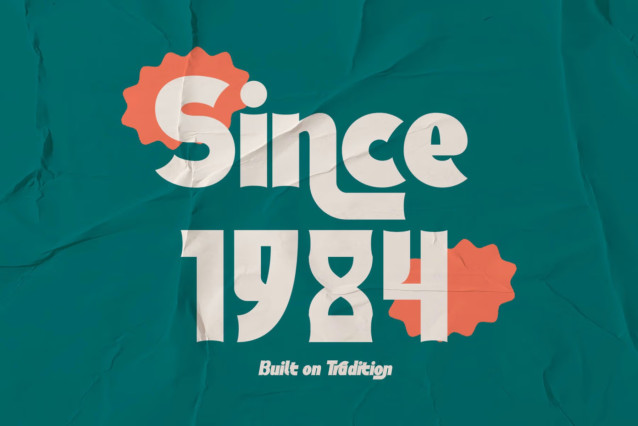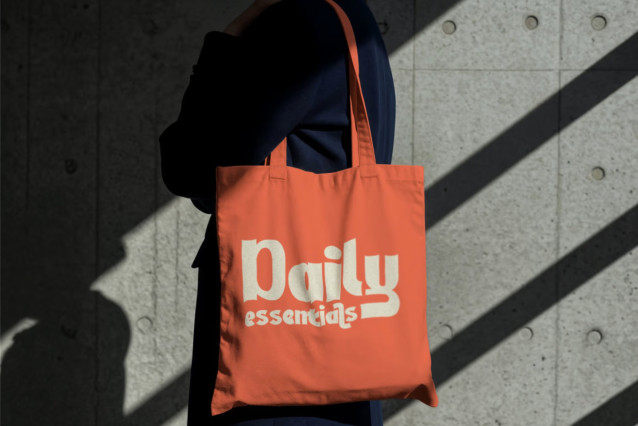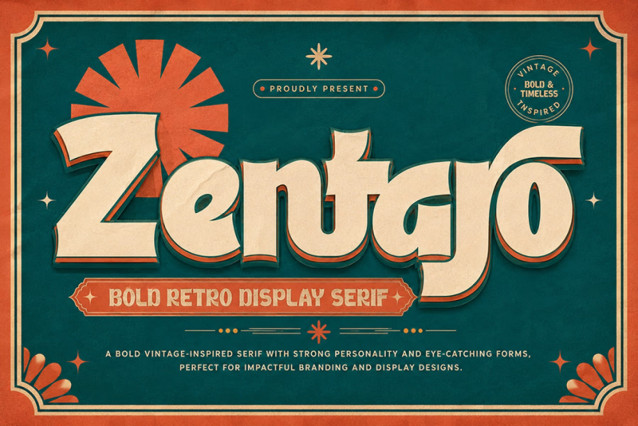
Zentaro Retro Serif Font
Zentaro is a bold retro display serif font inspired by vintage advertising, classic packaging, and expressive mid-century typography. Featuring uppercase and lowercase letters, swashes, alternates, titling characters, ligatures, numerals, punctuation, and multilingual support, Zentaro is perfect for retro logos, posters, packaging, apparel, product labels, restaurants, and creative branding.